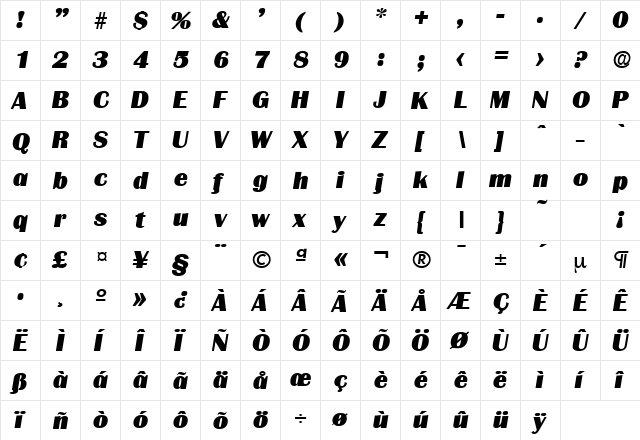
Grenoble-Serial-Heavy RegularItalic
Design Context for Grenoble-Serial-Heavy Typeface
Grenoble-Serial-Heavy takes a measured approach to typography — its balanced proportions and neutral character make it a reliable workhorse for both digital and print work. Its italic angle brings a sense of urgency and motion to the letterforms.
Pro Tip: Try Grenoble-Serial-Heavy for annotation and caption copy alongside an upright companion — the contrast in angle creates a dynamic but ordered typographic system.